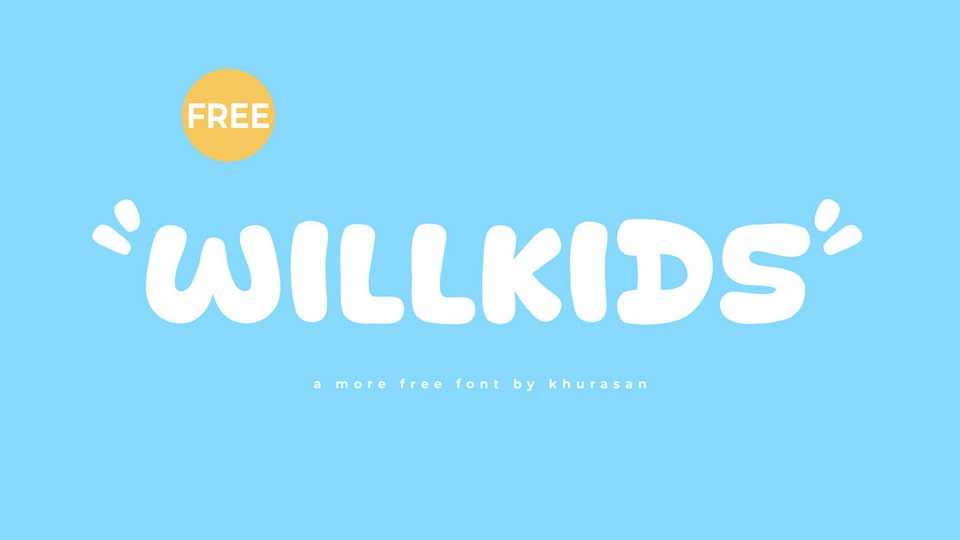
Download Willkids font, a hand lettered typeface that brings boundless joy and playful charm to your designs. The characters in Willkids font dance across the page with a light-hearted spirit, adorned with endearing curls, loops, and charming embellishments.